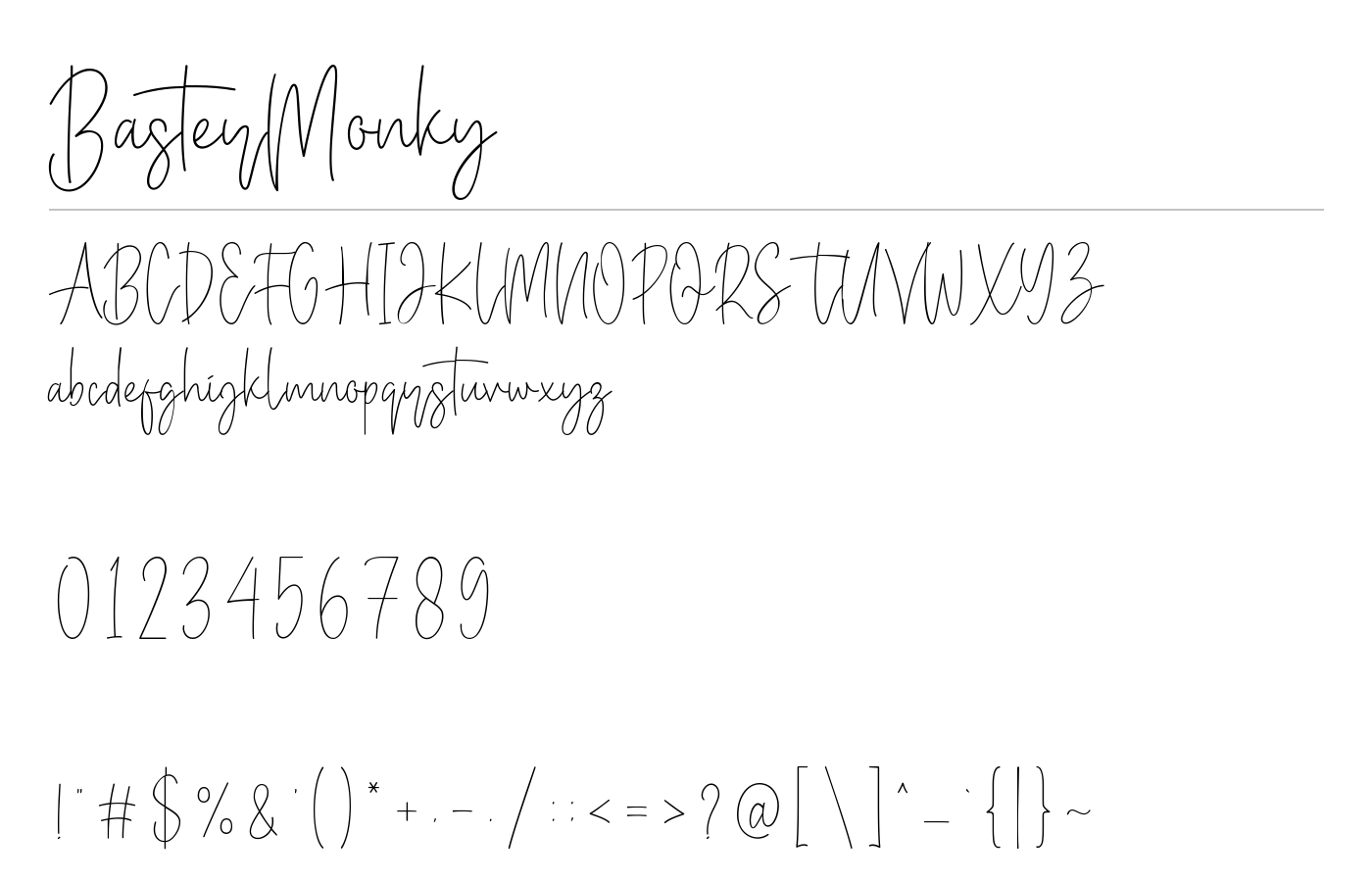
BasterMonky is a delicate, handwritten script font characterized by its tall, slender letterforms and fine, consistent strokes that convey an elegant yet playful feel. Its casual, airy style with elongated ascenders and descenders makes it perfect for creative projects, personal branding, and invitations where a personal and artistic touch is desired. This font works beautifully in headlines, logos, and decorative text where its unique charm and refined simplicity can truly stand out.
BasterMonky Font
About BasterMonky Font